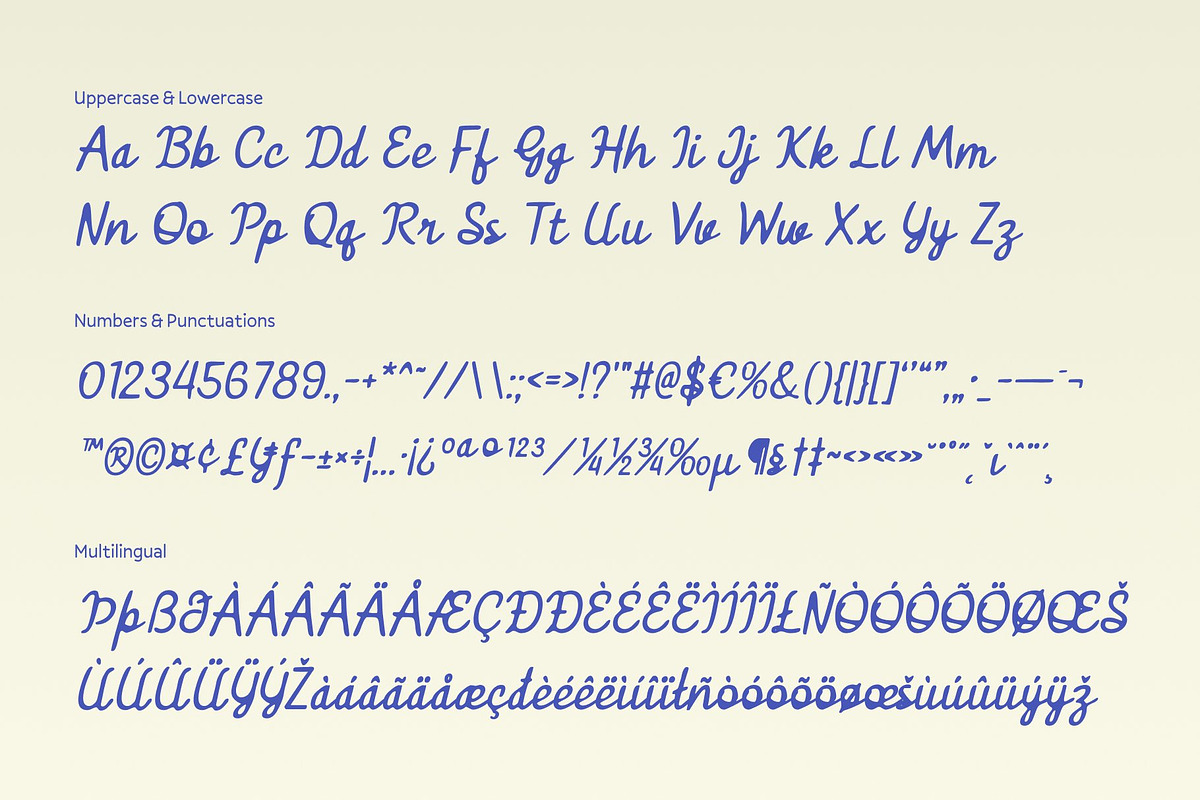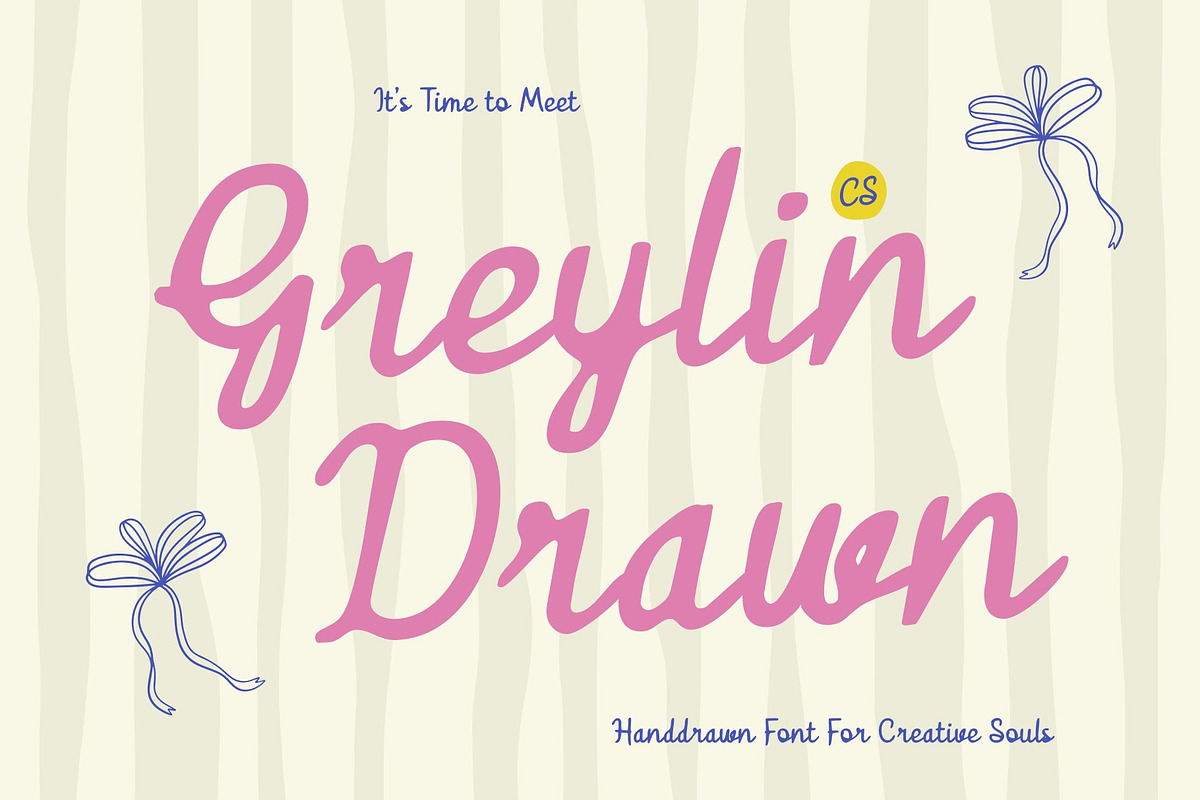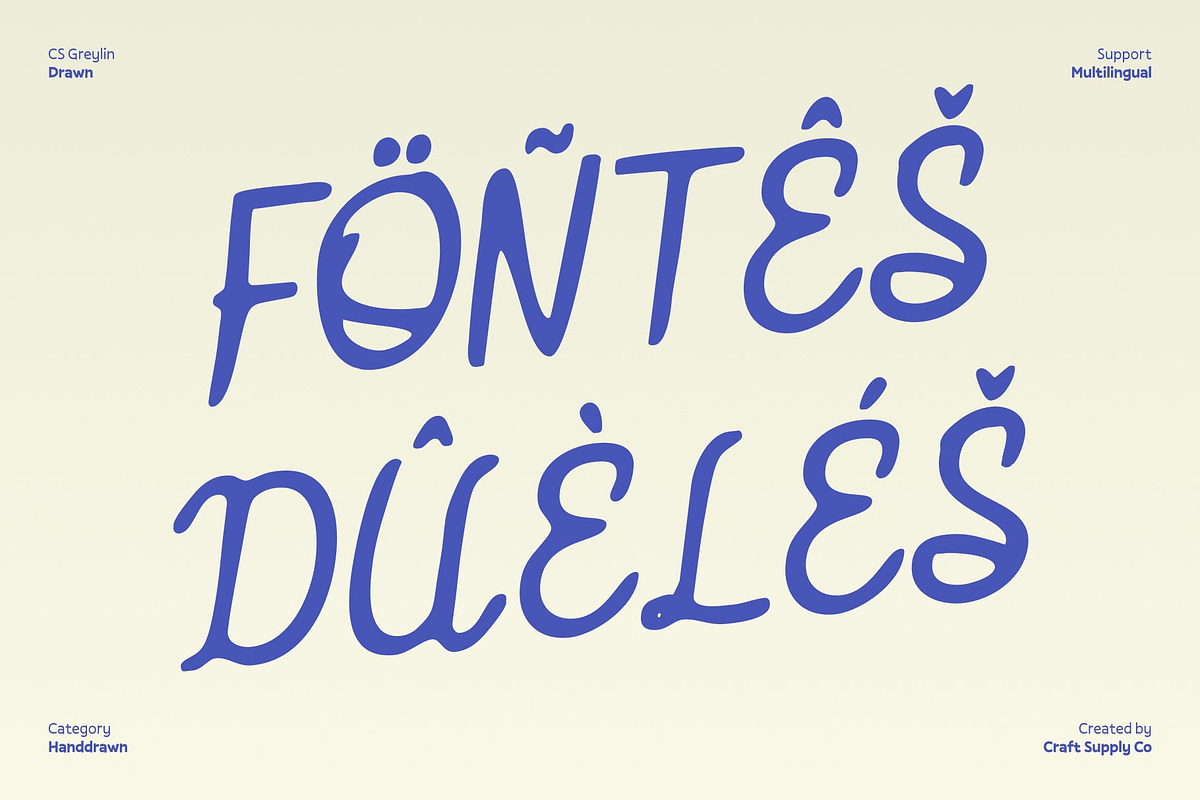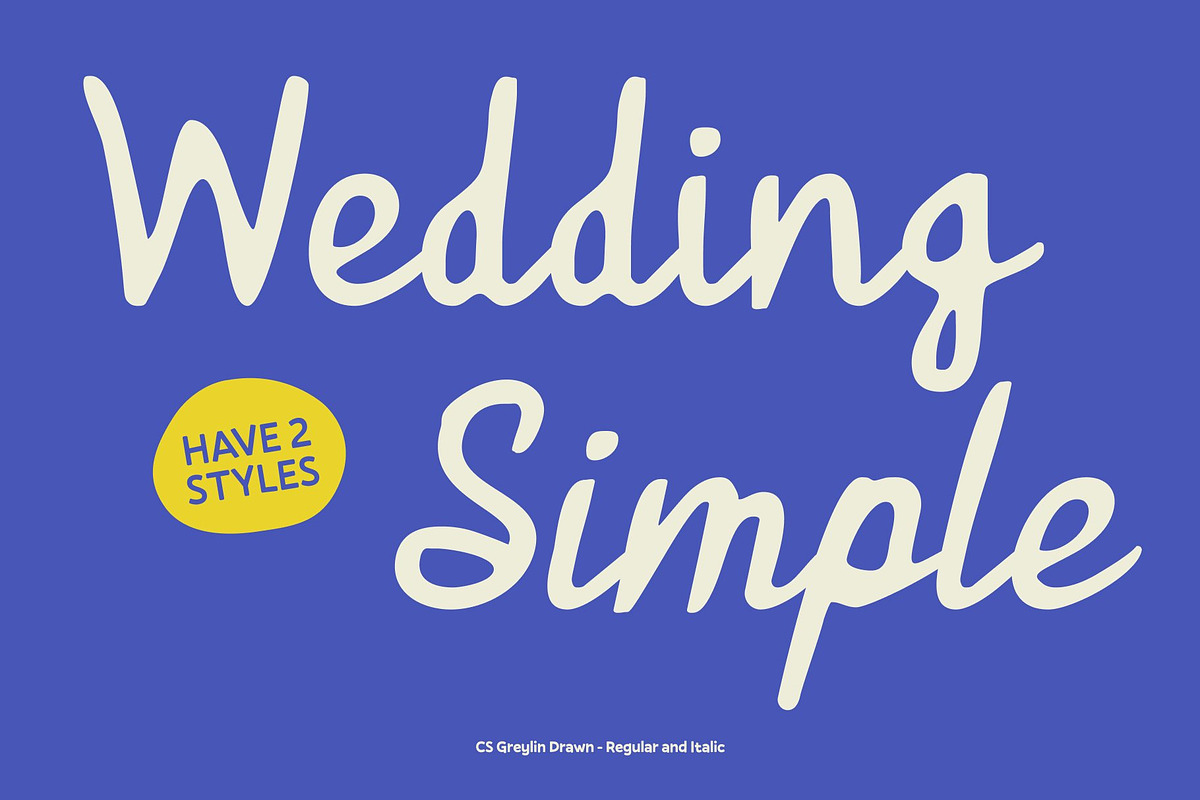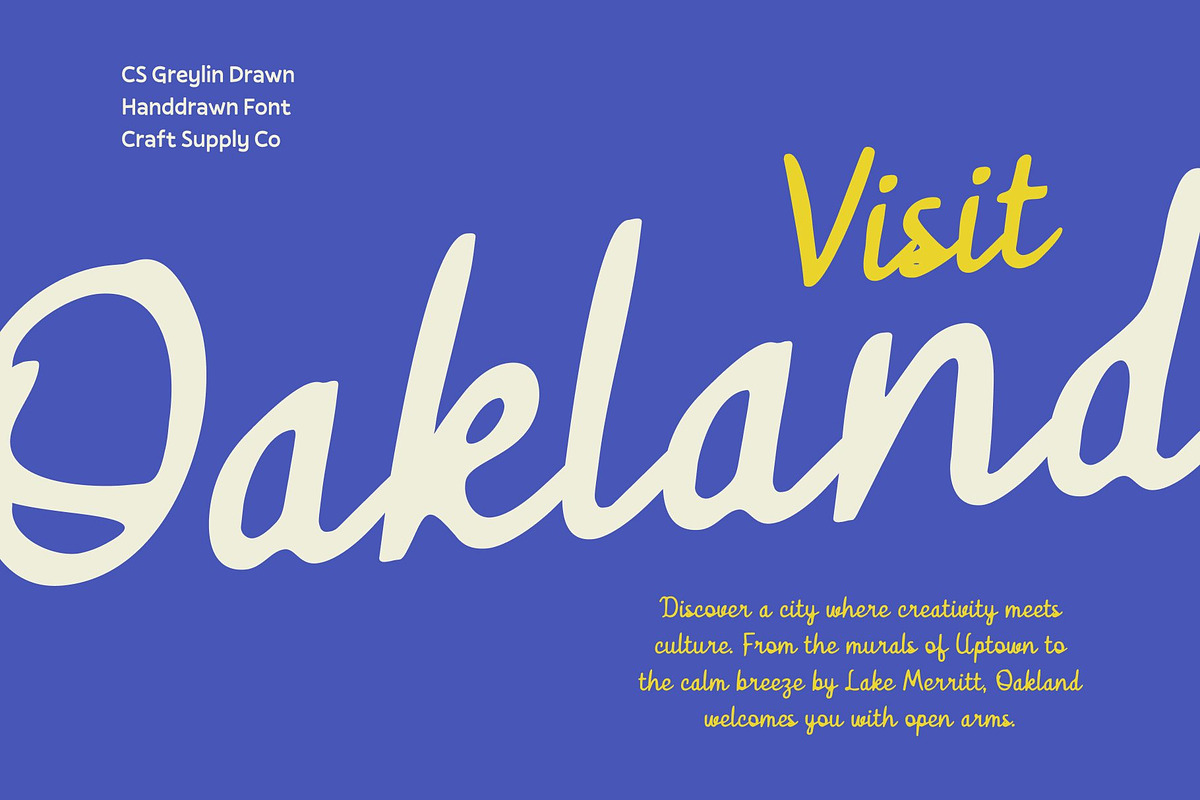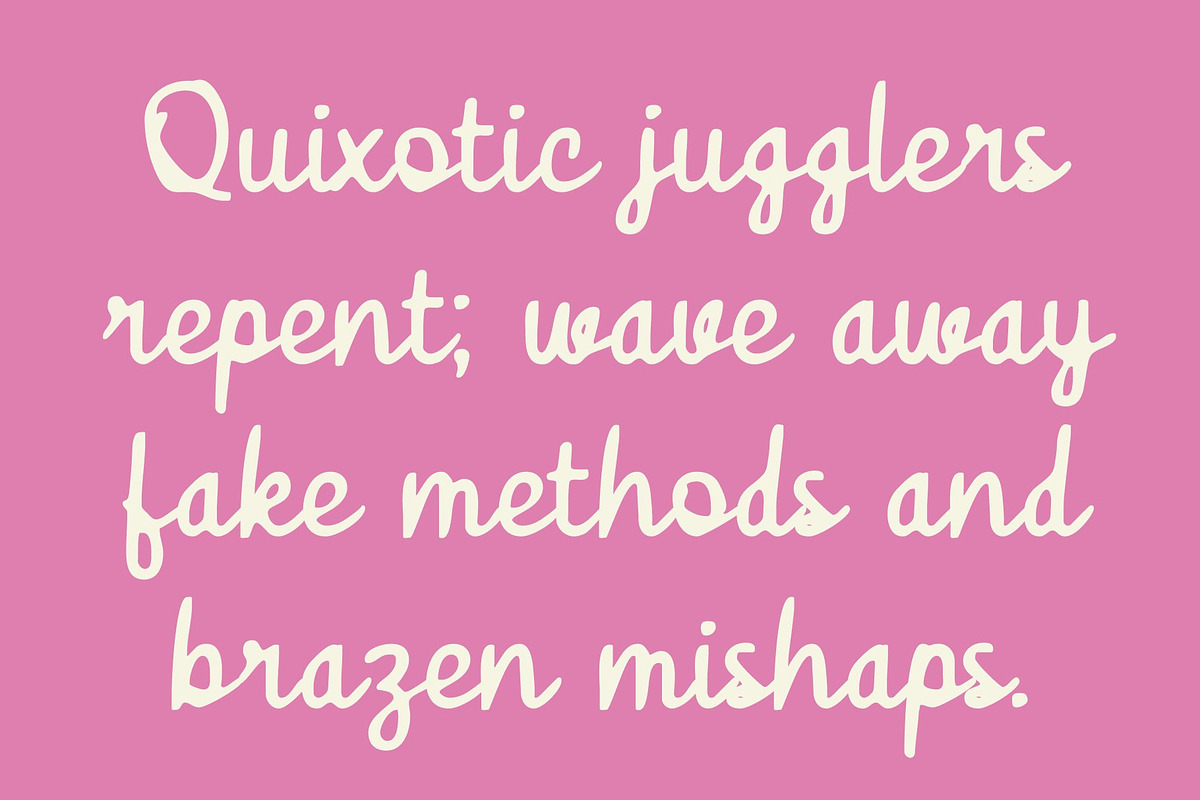
CS Greylin Drawn
CS Greylin Drawn – Script Font: Grace in Every Curve
Flowing Cursive with Modern Precision This is a modern script font that gracefully merges the charm of handwritten cursive with the clarity of contemporary typography. Its smooth, flowing strokes create a natural rhythm that feels elegant yet intentional. The drawn effect introduces subtle handcrafted nuances, giving the font warmth and authenticity while preserving a refined, modern finish.
Clean and Proportional Design Designed with careful precision, features balanced proportions, neat spacing, and consistent stroke weight. Gentle curves soften its structure, while the controlled flow ensures excellent legibility. This thoughtful construction allows the font to remain clear and polished across various sizes and applications.
Perfect for Luxury and Feminine Branding Radiating elegance and grace, this font is ideal for luxury branding, wedding invitations, upscale event stationery, beauty products, and lifestyle visuals. Its fluid script style communicates sophistication while maintaining a personal, emotional touch that feels inviting and refined.
Versatile Sophistication Beyond its beauty, this font is highly versatile. It works seamlessly in logos, packaging, social media graphics, editorial layouts, and minimalist designs. Whether used as a statement or a supporting element, it adds timeless elegance, artistic character, and expressive charm to any creative project.
- CS Greylin Drawn Regular
- CS Greylin Drawn Italic